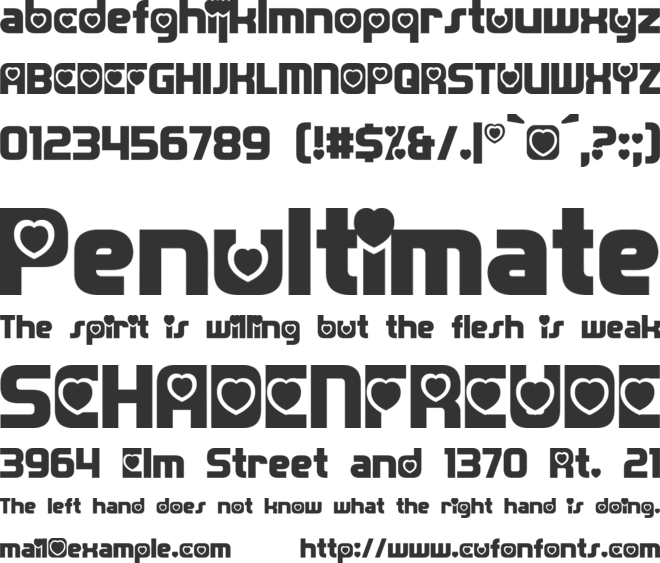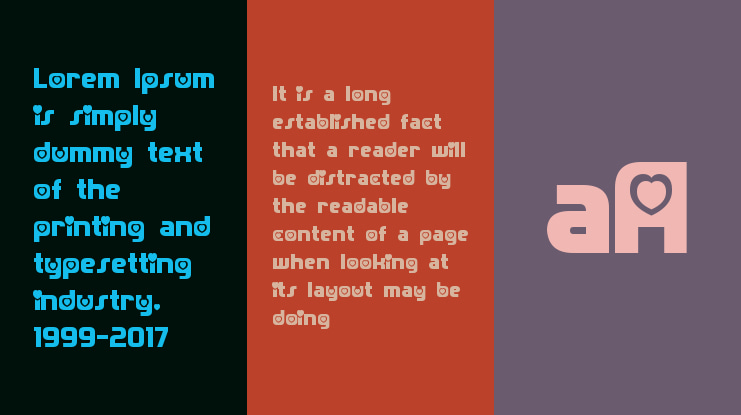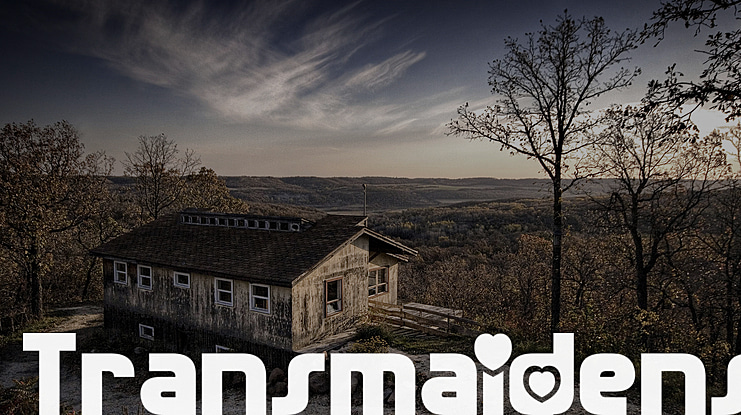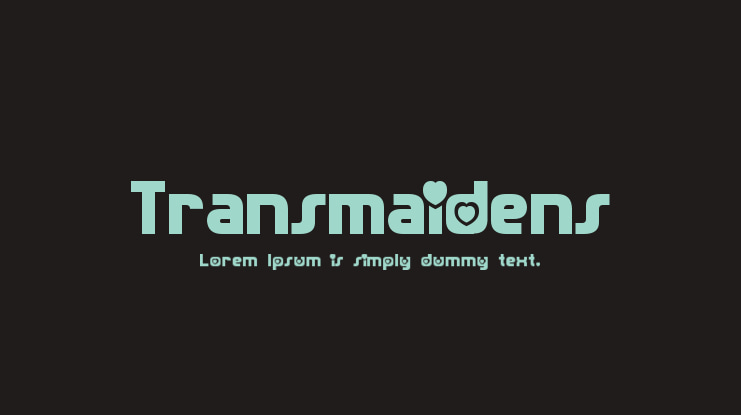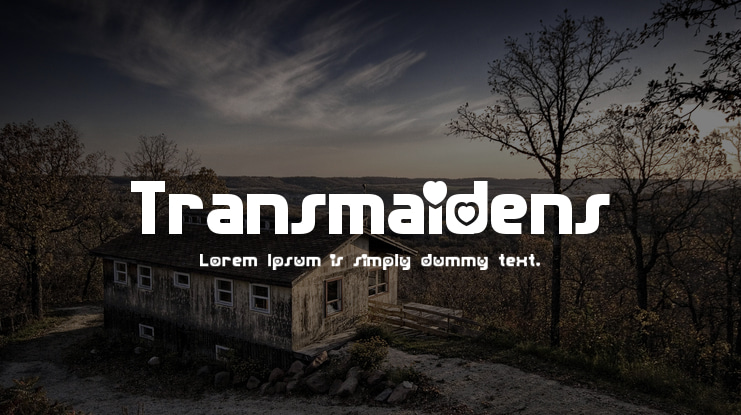
Transmaidens Font Family
Neale Davidson
This 'cute' version of the famous Transformers typeface was made for a now-defunct fan-fiction series. Many of the letters have been adorned with 'hearts'. Includes full alphabet, extended punctuation, Euro. Includes italic version.
- Added oe and per-thousand glyphs
- Spacing cleanup